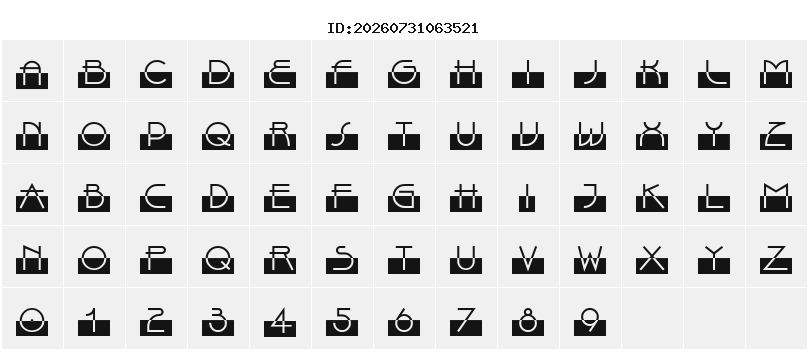
LTBix Preview
• Font Name: LTBix
• Full Font Name: Linotype Bix Plain
• Designer: Victor Luis Garcia
About LTBix.ttf
LTBix.ttf is a modern, elegant sans-serif font designed for ultimate readability and visual harmony. Perfect for branding, headlines, web design, and print materials.